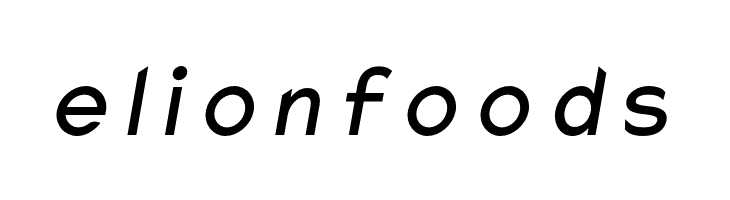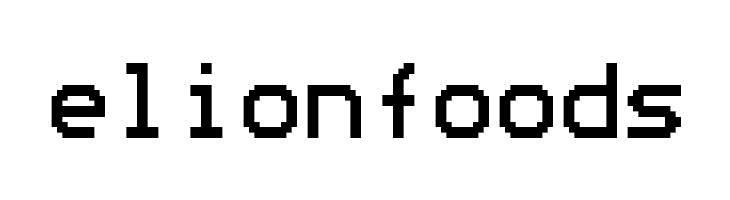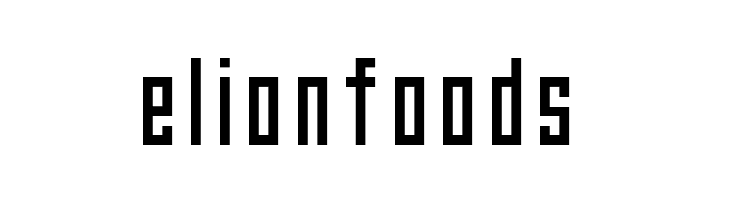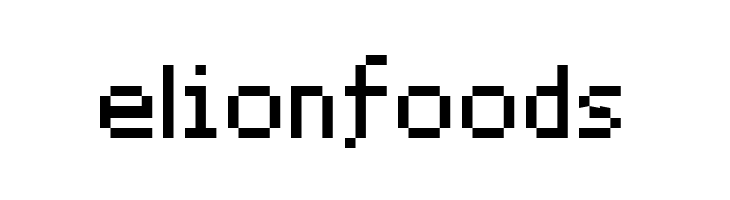
A modern, condensed monospace italic font with clean lines and consistent spacing.
A mechanical, condensed font with monospaced, uniform strokes and clear legibility.
A modern, monospaced italic font with consistent width and sleek design.
A sleek, modern monospaced typeface with an extra light, italic style.
A light, italic, monospaced font with a modern and clean design.
A modern, thin, monospaced italic font with clean lines and high legibility.
A clean, modern monospaced font with uniform character widths and geometric structure.
A pixelated, monospaced font with a retro digital style.
A modern, geometric, monospaced font with rounded edges.
A pixelated, monospaced typeface with a retro digital aesthetic.
A pixelated, monospaced font with a retro, digital style.
A pixelated, monospaced typeface inspired by classic DOS displays.
A pixelated, monospaced font with a retro, digital aesthetic.
A pixelated, monospaced font with a retro digital aesthetic.
A symbolic, QR code-inspired set for encoding alphanumeric data.
A geometric, monospaced font with clean lines and uniform character width.
A modern, geometric font with a clean, monospaced appearance.
A pixelated, monospaced font with a retro digital aesthetic.
A geometric, monospaced font with a modern, technical style.
A geometric, monospaced font with bold strokes and rounded edges.
A bold, monospaced font with a typewriter-like aesthetic.
A bold, rounded font with smooth curves and uniform strokes.
Abstract, electric-themed decorative font with energetic shapes.
Playful, hand-drawn decorative font made of human figures holding hands.
A modern, geometric monospaced font with rounded edges.
A pixelated, monospaced font with a retro digital style.
A condensed, monospaced font with a modern, digital aesthetic.
A pixelated, monospaced font with a retro digital aesthetic.
A bold, monospaced font with uniform width and modern, rounded edges.
A dynamic monospace font with an oblique slant, offering uniformity and elegance.
A geometric, monospaced font with a modern, technical style and rounded corners.
A dynamic, brush-stroke font with an expressive and artistic style.
A classic monospaced typewriter font with a light weight and low contrast, ideal for structured and readable text.